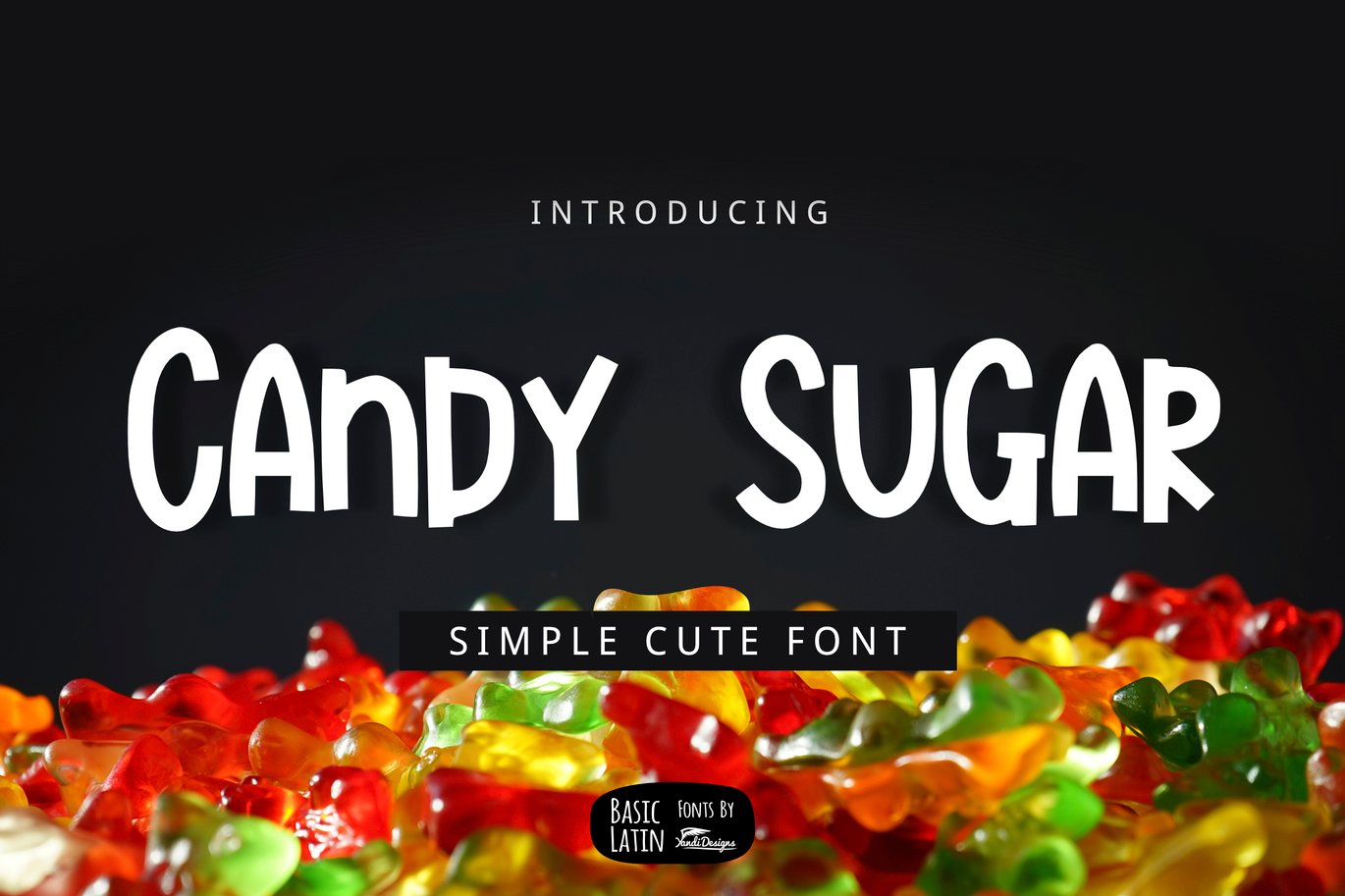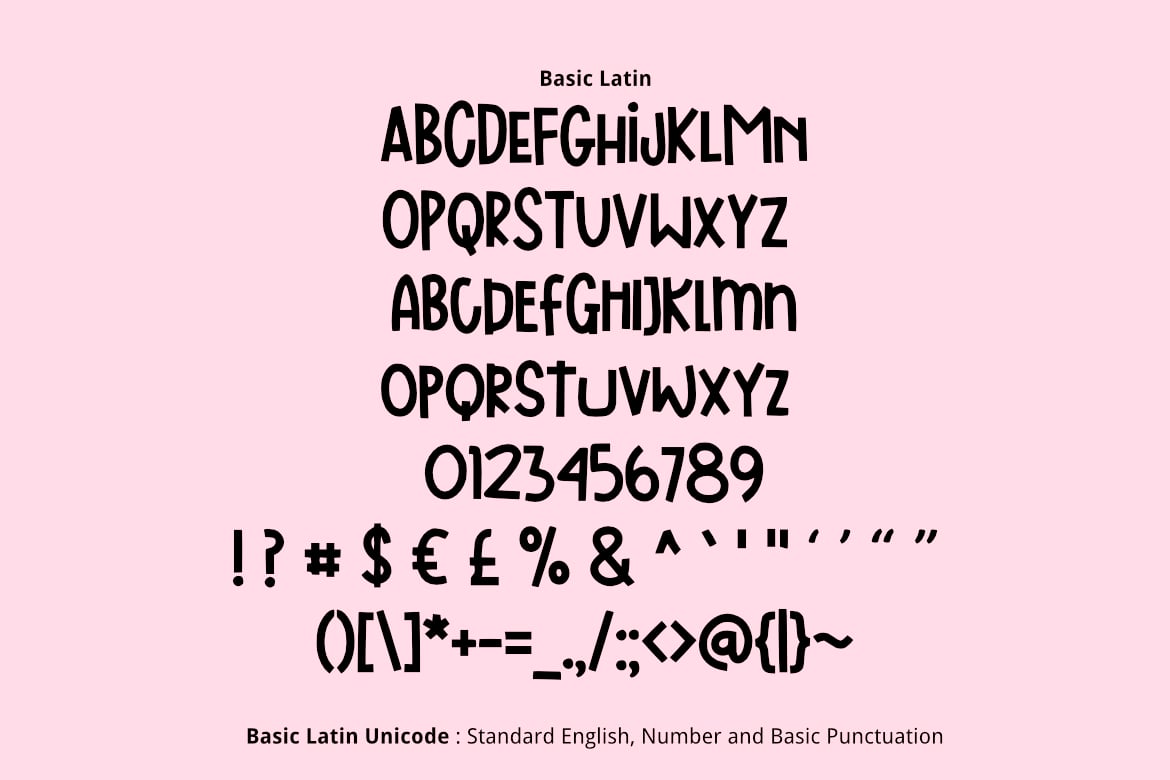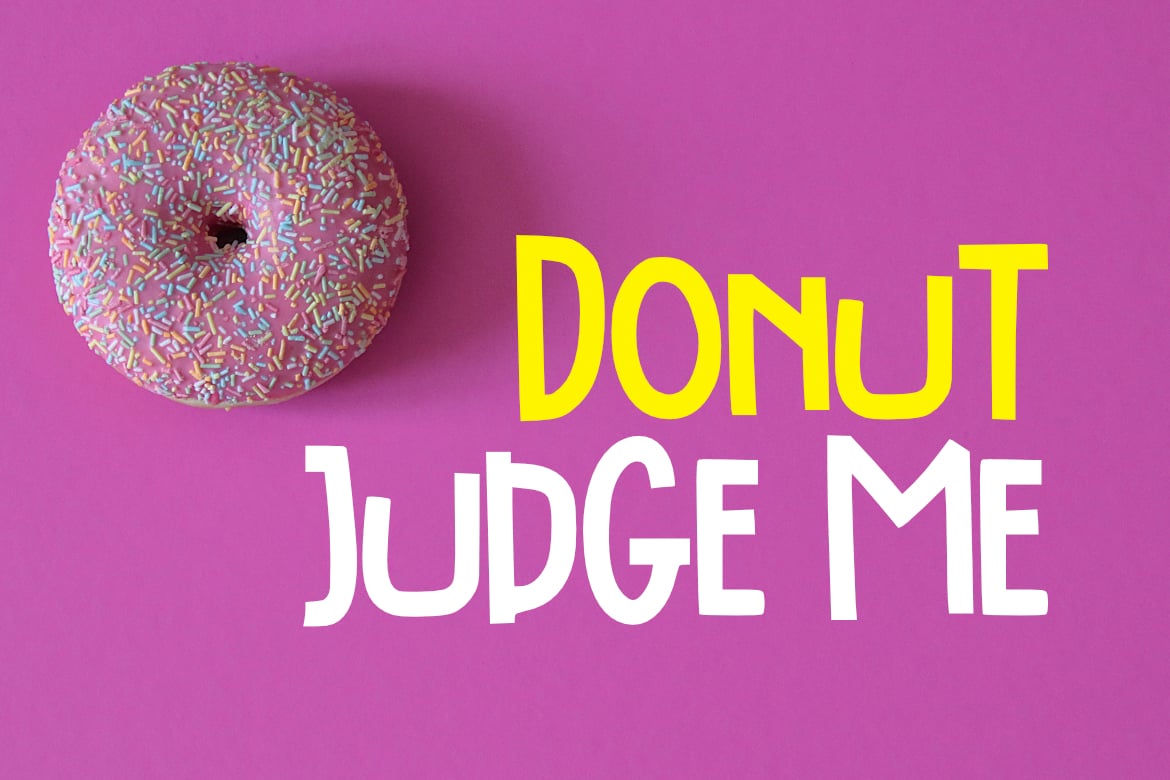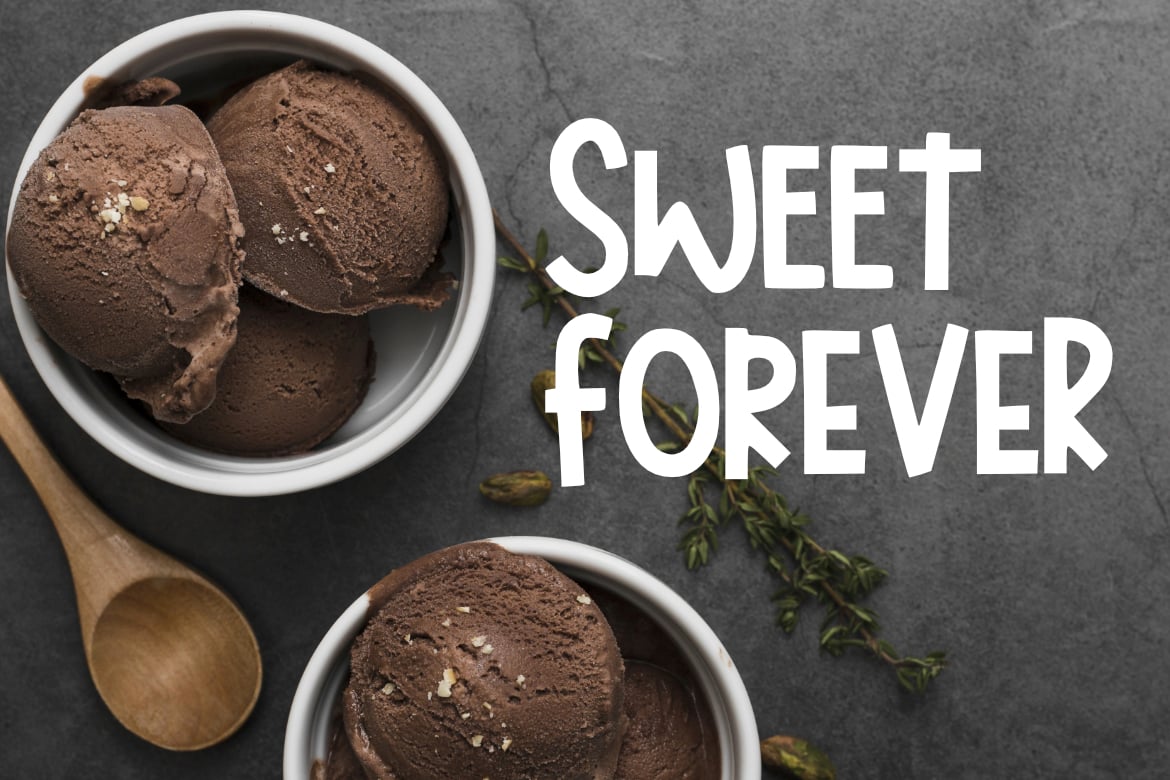
Candy Sugar Font
Candy Sugar Font is simple cute multipurpose handmade font, suitable for many project children book, quotes, logo , heading , title etc.
Basic Latin (Standard English character , number, symbol)